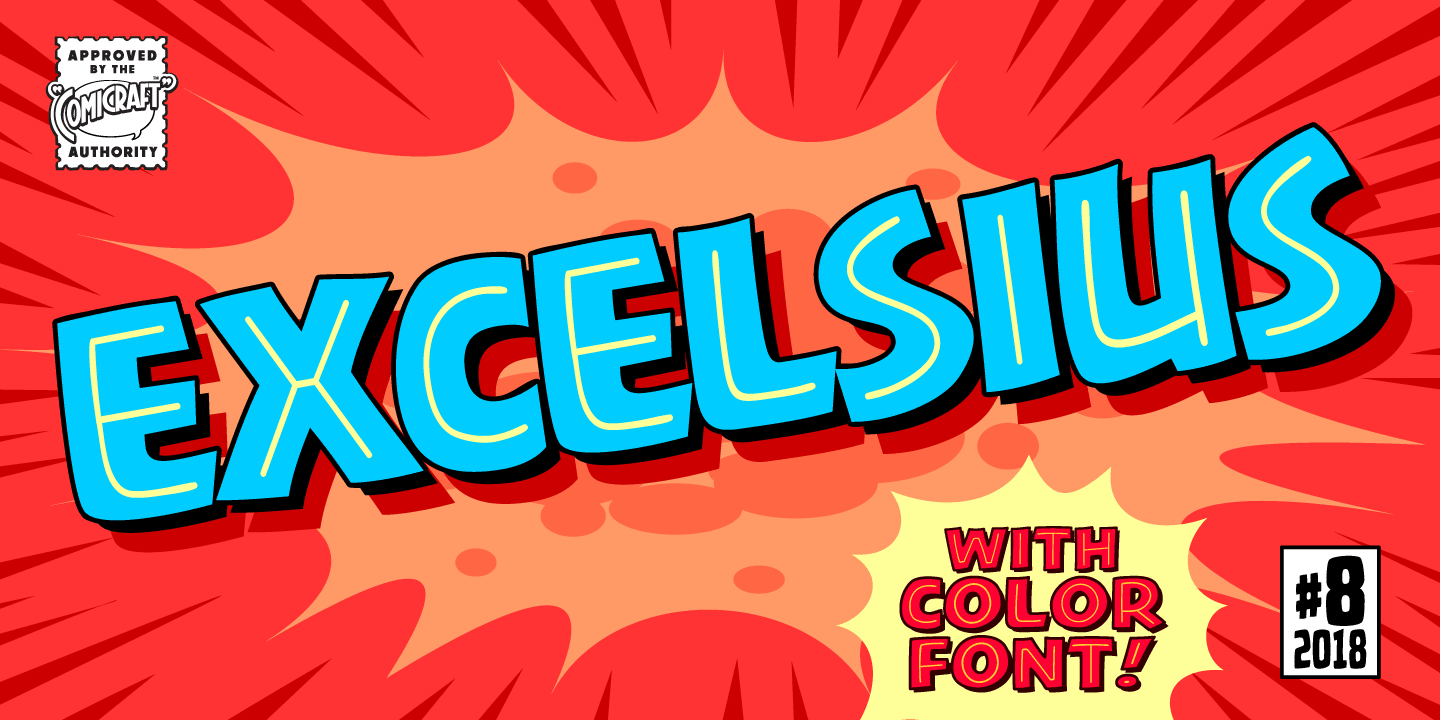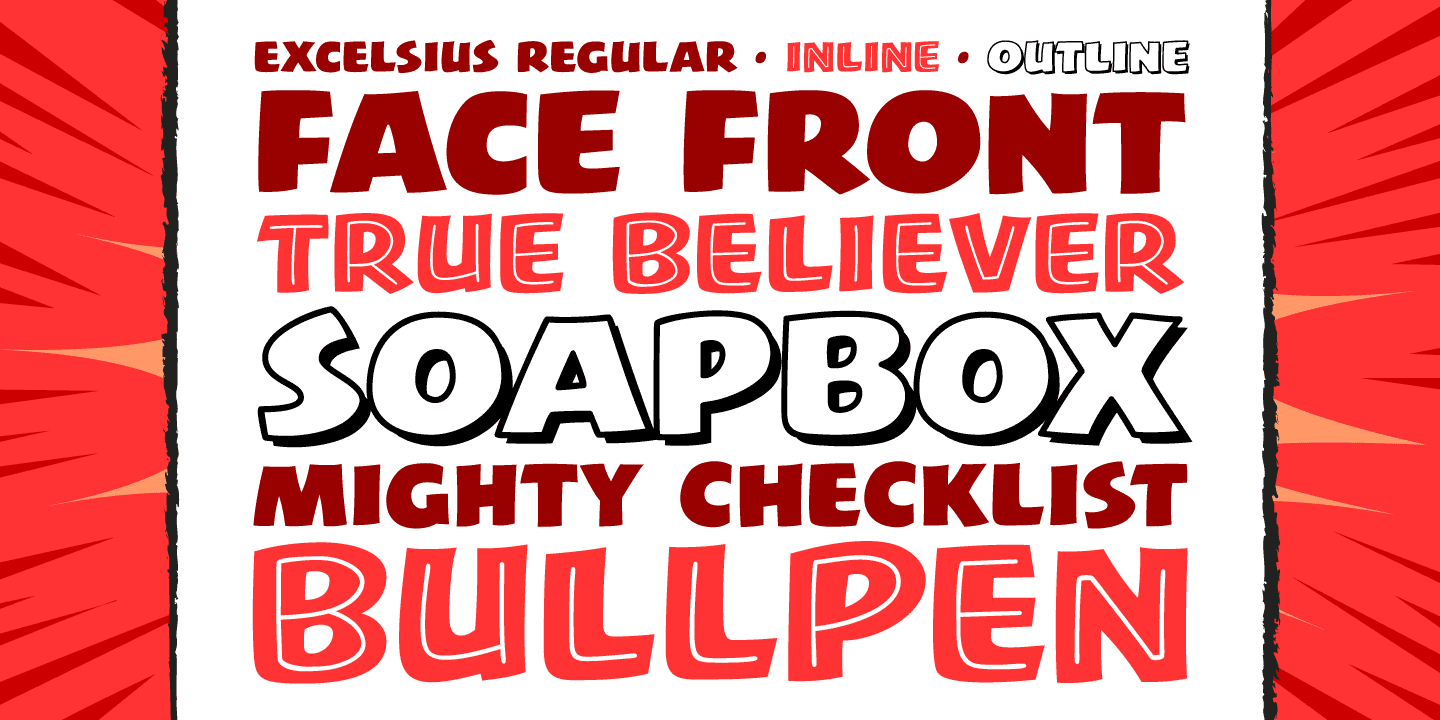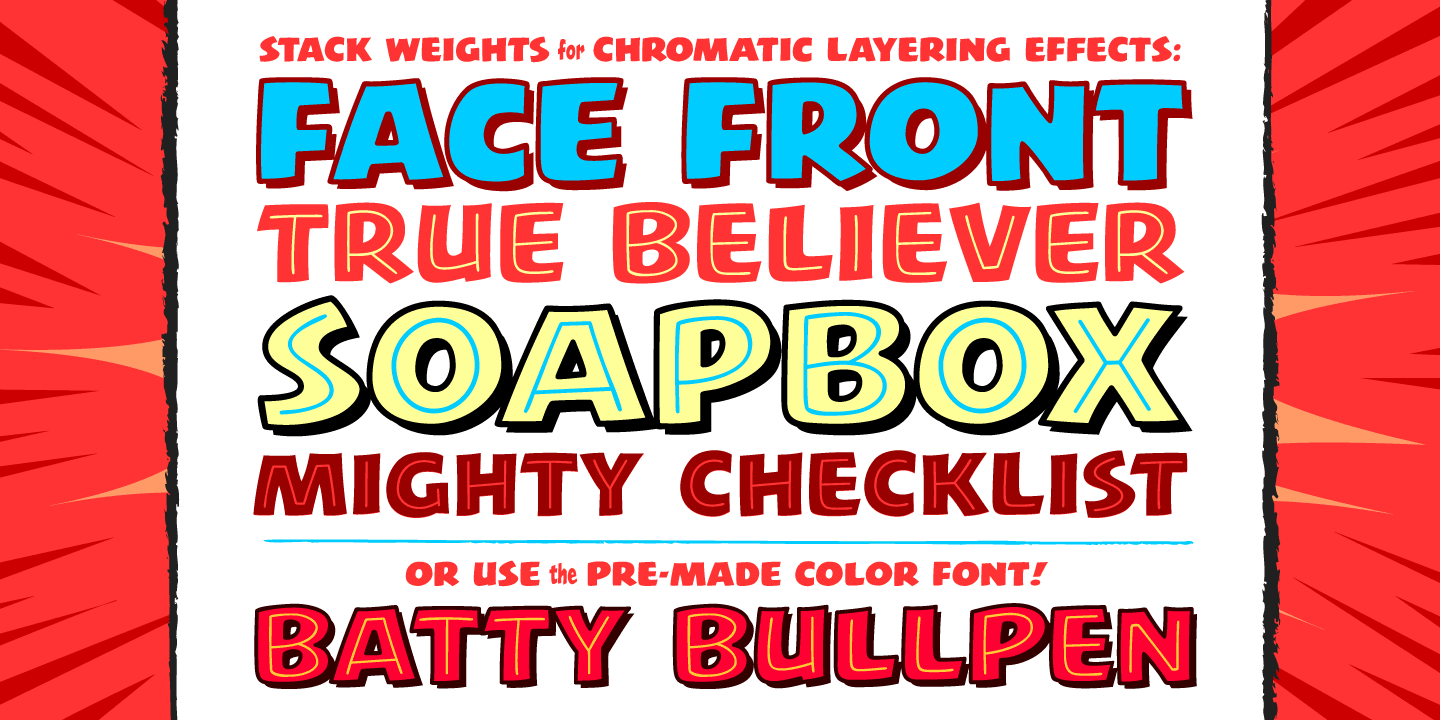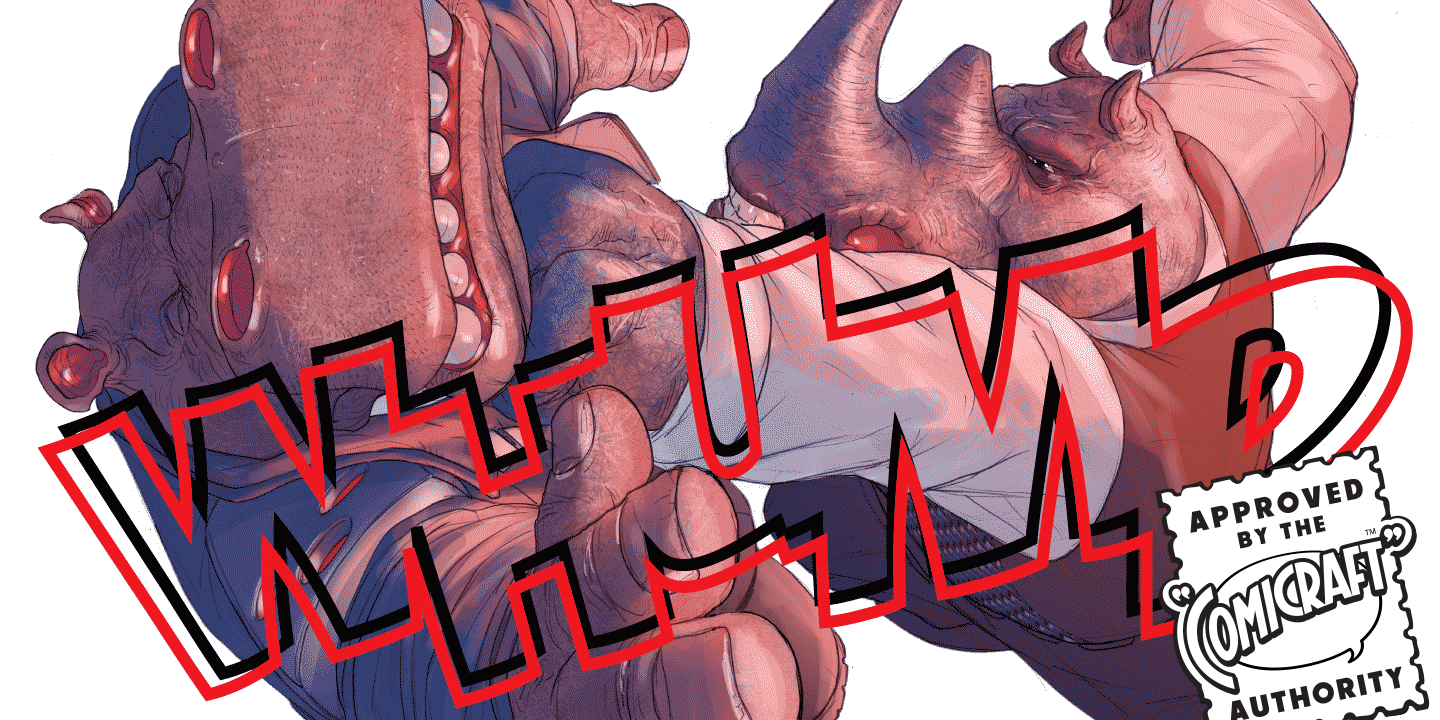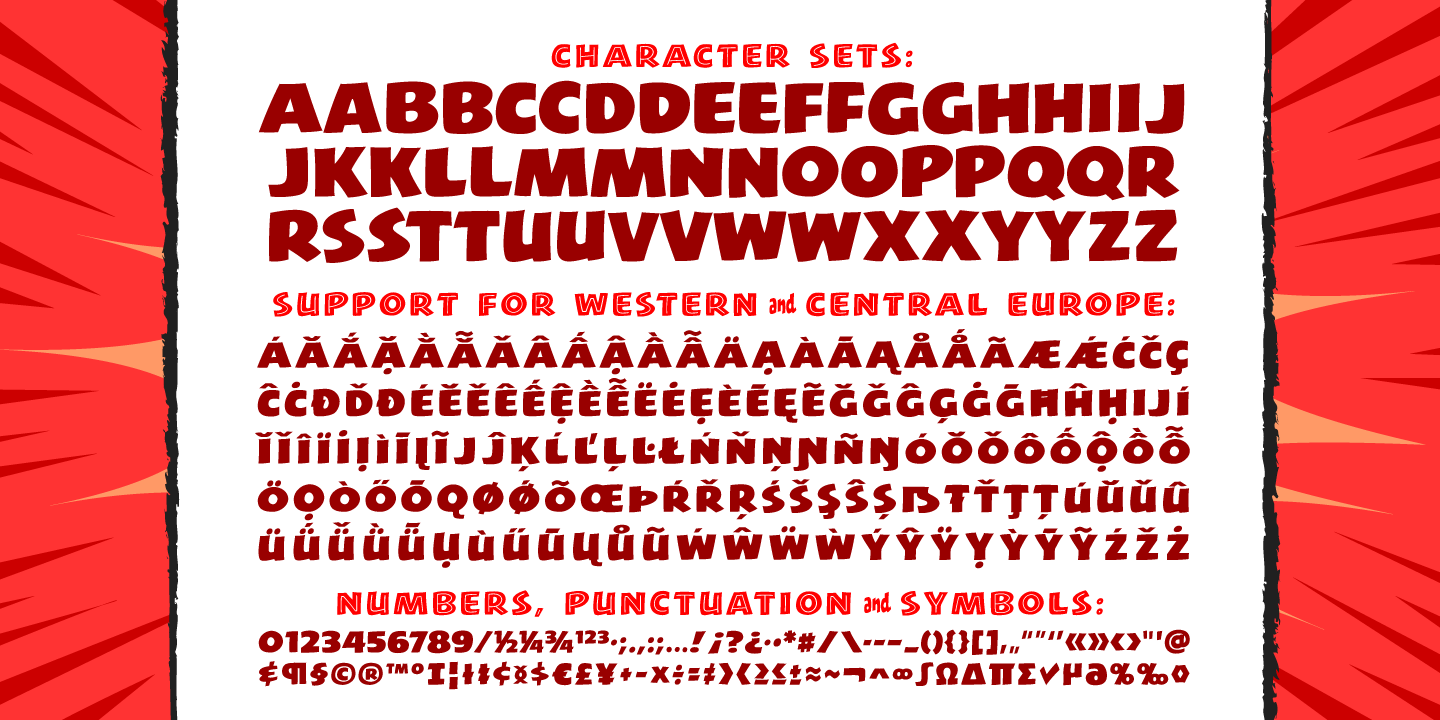
Excelsius
Font Family by Comicraft Fonts
Once upon a midnight dreary, this Comicraftsman pondered, weak and weary,
For a name synonymous with Mighty and Marvelous comics lore.
Solid, Outline, Inline was the nameless font I'd crafted,
I nodded, nearly napping o'er the work I'd grafted
When suddenly came a tapping,
As of someone gently rapping, rapping at my cubicle door.
"'Tis some visitor," I muttered, "tapping at my cubicle door--
Calling out "EXCELSIOR!"
Then an Amazing Vision beguiled my sad fancy into smilin',
By the Spectacular decorum of the countenance it wore,
"Though thy crest be shorn and shaven," he said, "thou art sure no craven,
And thy font should not remain nameless here forevermore!"
Eagerly I wished the morrow; vainly I had sought to borrow
From comic books surcease of sorrow, letters that called out "EXCELSIOR!"
Then, upon the velvet sinking, I betook myself to linking
Fancy unto fancy, thinking of the nominative neuter singular thing
Like Some Silvered Surfer wandering from the Nightly shore--
The Vision shrieked, upstarting--"Tell me what thy lordly name is thus!"
Quoth the Craftsman: "EXCELSIUS!"